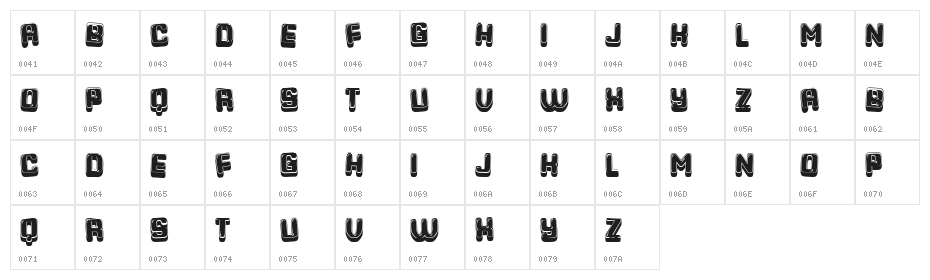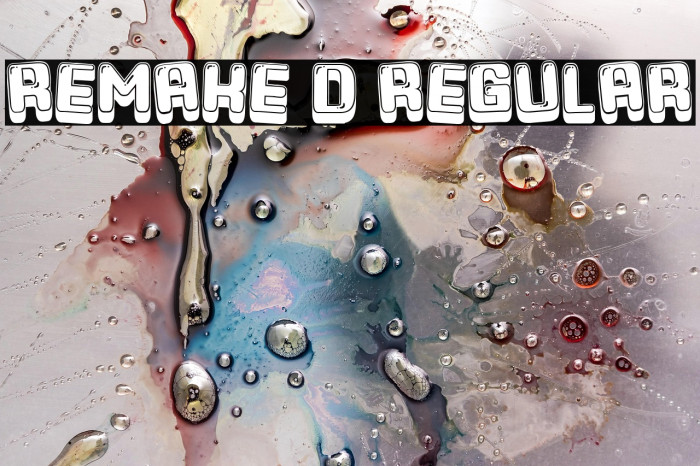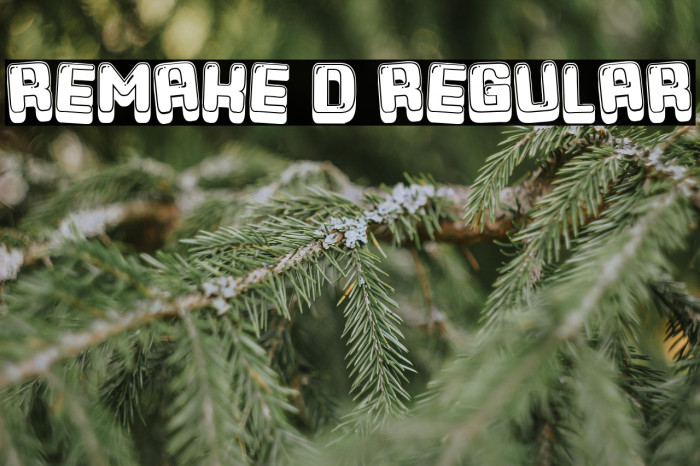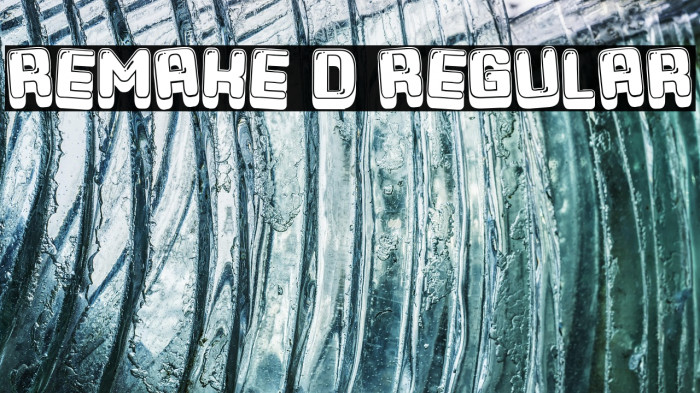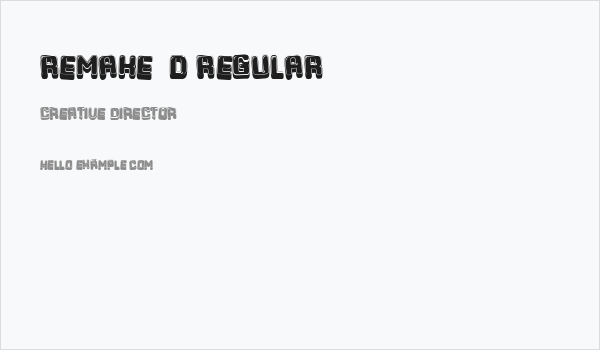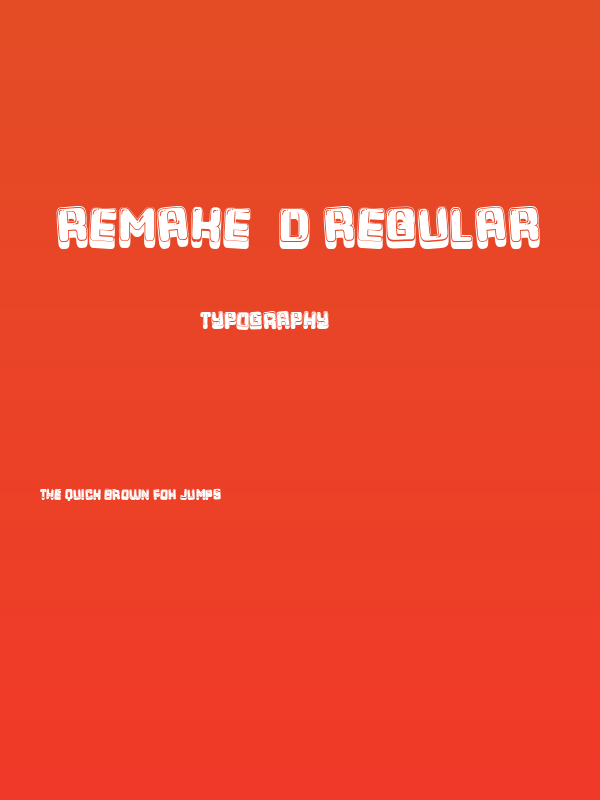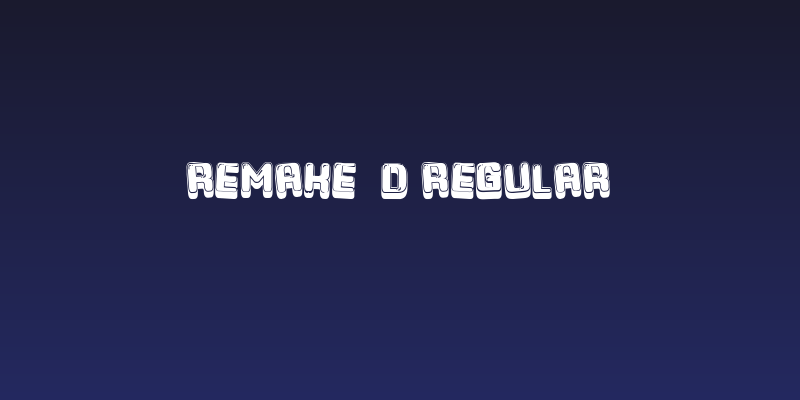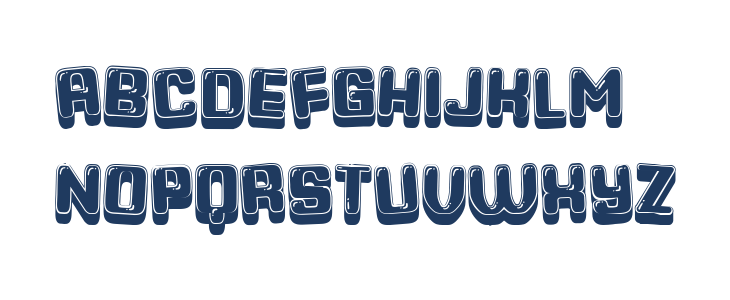
Remake 3D Regular Font
Remake 3D Regular Description
This font exhibits a bold, three-dimensional style with a playful and modern appearance. Each character is outlined with a thick black border, creating a shadow effect that enhances the 3D illusion. The letters are rounded and have a smooth, polished look, making them stand out prominently. The font maintains a consistent height and width across all characters, contributing to a uniform and cohesive appearance. Its design is eye-catching and suitable for projects that require a fun and engaging visual element. The font's unique style makes it ideal for creative and artistic applications.
Proposed ProjectsIdeal for posters, children's book covers, video game graphics, and any project needing a fun, dynamic look.